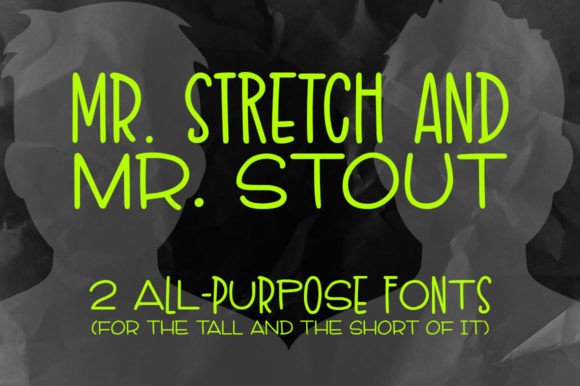
Meet Mr. Stretch & Mr. Stout Font: Your Ultimate Font Duo for Creative Projects
In the world of typography, finding the right font can make all the difference in the success of a design project. Whether you’re working on a crafting, printing, or cutting project, the font you choose can elevate your work from ordinary to extraordinary. Introducing Mr. Stretch and Mr. Stout, two gallant fonts designed to help you take your font projects to the next level. These two complete fonts were written with the same pen, built to work well together, and offer a world of creative possibilities.
Key Features of Mr. Stretch & Mr. Stout Font
- Two Complete Fonts: Mr. Stretch and Mr. Stout are two distinct fonts that can be used separately or together to create a unique look.
- Handwritten Style: Both fonts have a handwritten style that adds a personal touch to any project.
- Extensive Character Set: Each font comes with over 300 extended Latin characters, including ß, Æ, æ, Œ, œ, Å, and å, for language support.
- Uppercase Variations: Each font has two full uppercase sets: one with a high center of gravity and one with a low center.
- Numbers and Punctuation: A full set of numbers and punctuation marks is included in each font.
A Closer Look at Mr. Stretch and Mr. Stout
Mr. Stretch and Mr. Stout are two fonts that couldn’t be more different, yet they work beautifully together. Mr. Stretch is a tall and slender font, perfect for headlines, titles, and other display text. Mr. Stout, on the other hand, is a short and sturdy font that’s great for body text, captions, and other smaller text elements.
One of the unique features of these fonts is the ability to switch back and forth between them within the same word. This creates a funky, playful look that’s sure to grab attention. For example, you could use Mr. Stretch for the main text and Mr. Stout for emphasis or to add a bit of contrast.
Extensive Glyph Cleanup
The glyphs in both Mr. Stretch and Mr. Stout have been extensively cleaned up to reduce superfluous nodes and points while maintaining a handwritten look. This means that the fonts are not only visually appealing but also efficient and easy to work with.
Creative Use Cases for Mr. Stretch & Mr. Stout Font